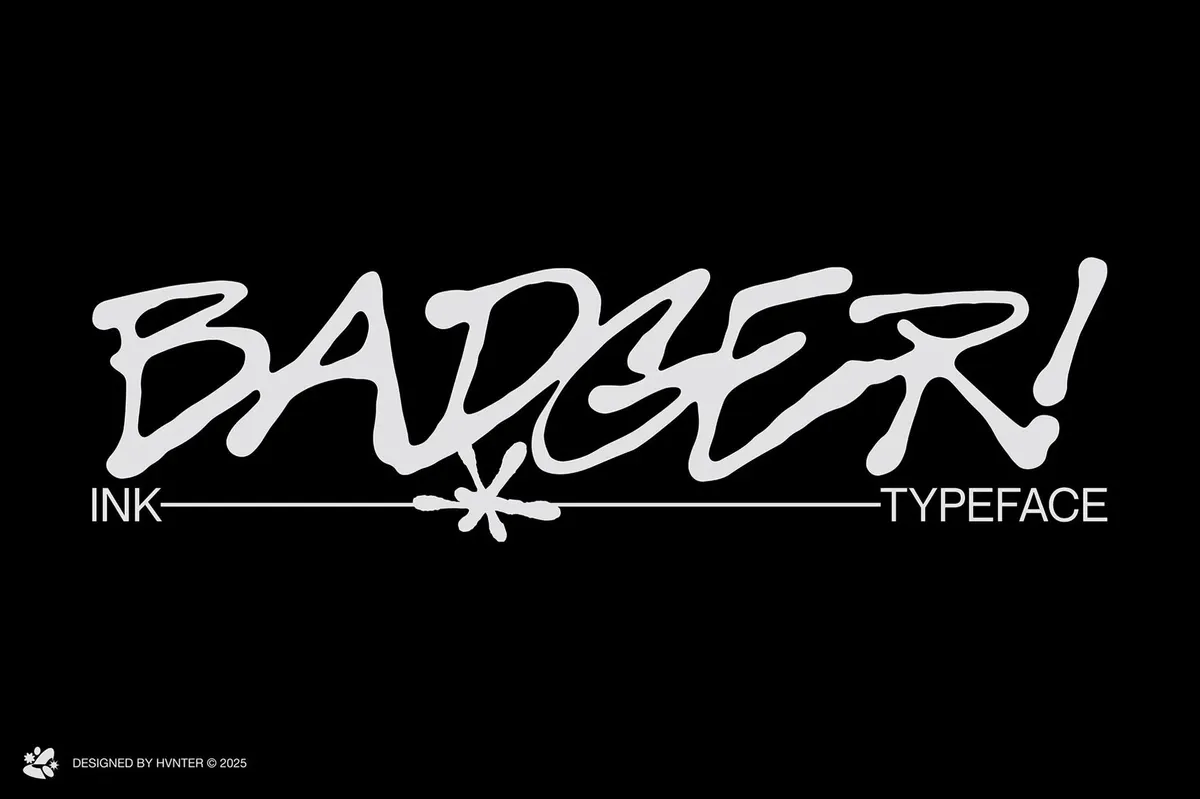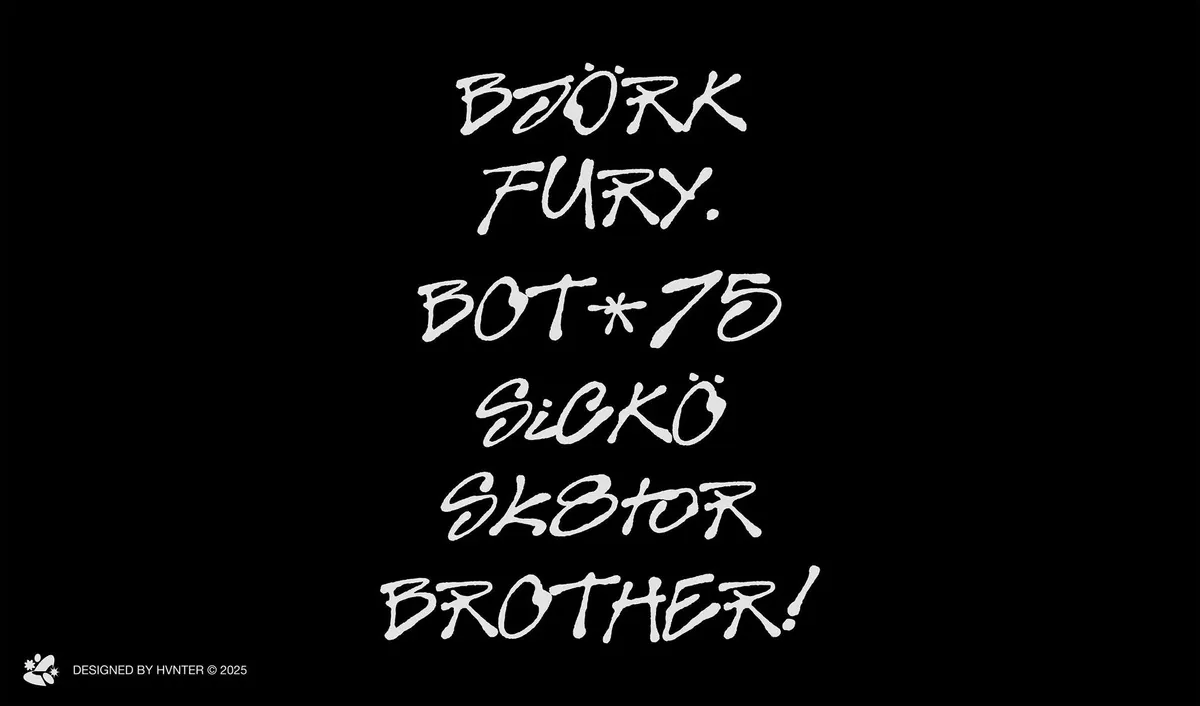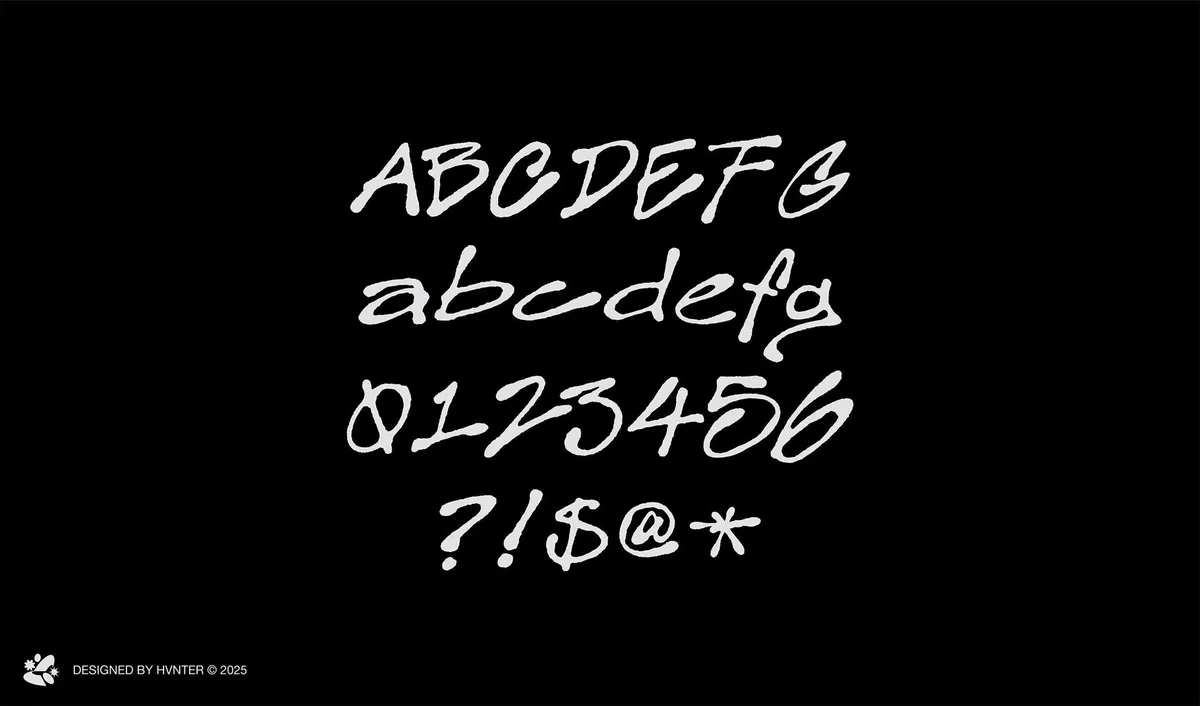
BADGER Typeface
This font script-meets-graffiti display font embraces illegibility as an aesthetic choice. It is unpredictable, with sudden slashes, exaggerated curves, and aggressive spacing — clearly leaning into underground skate culture, electro-punk, and 1990s rave posters. Badger provides a standard character set with marker-drawn letters. It's suited ideally for subcultural poster art, apparel graphics, album covers, logotypes, and fashion lookbooks.